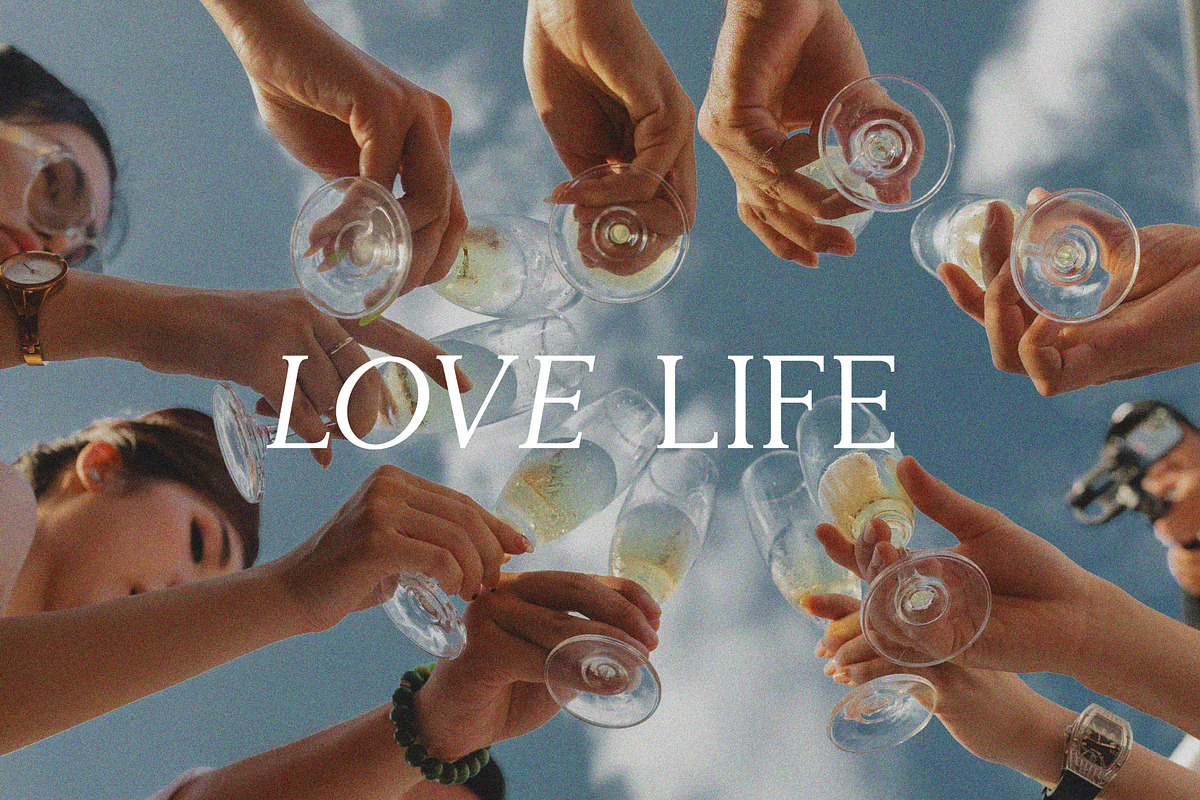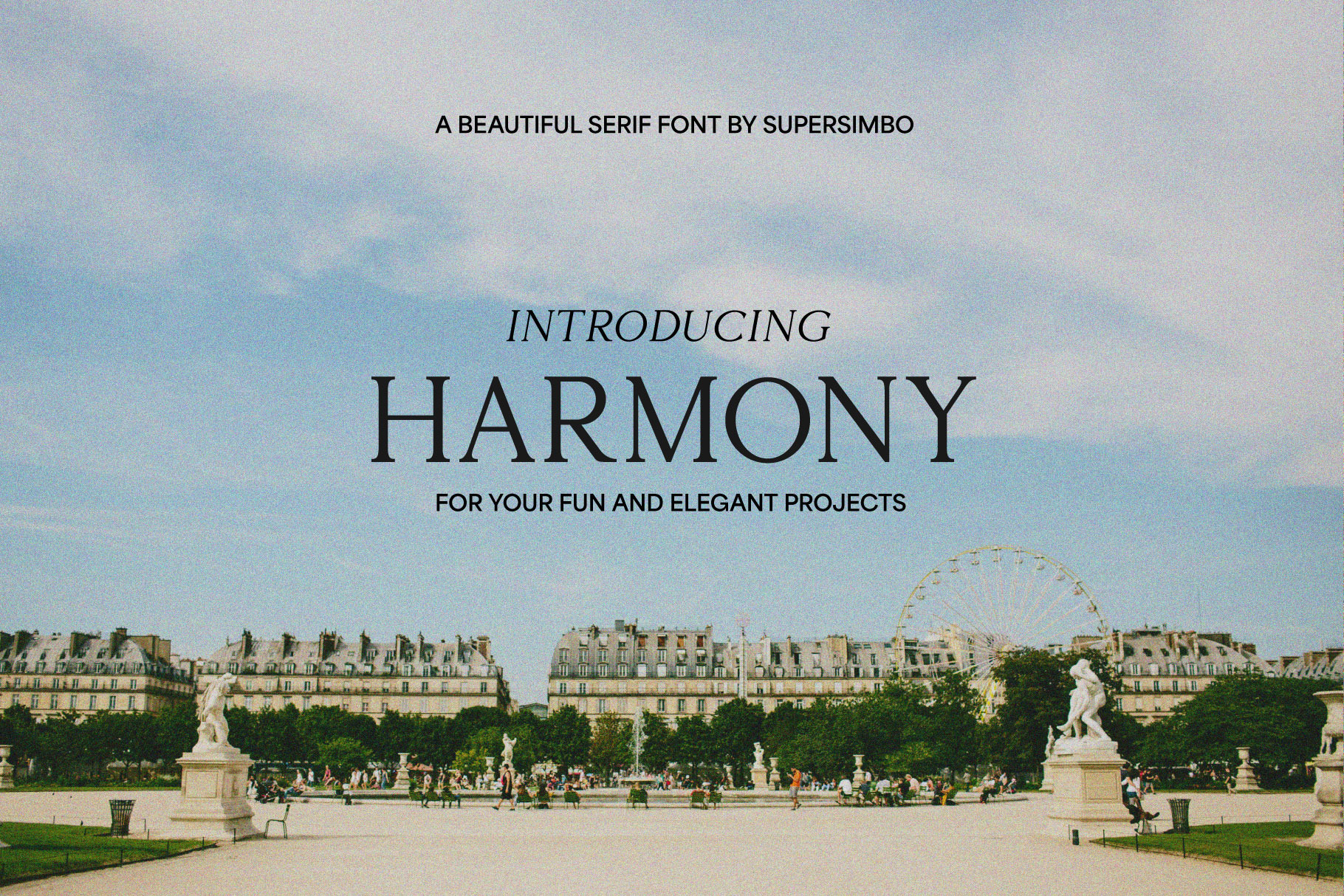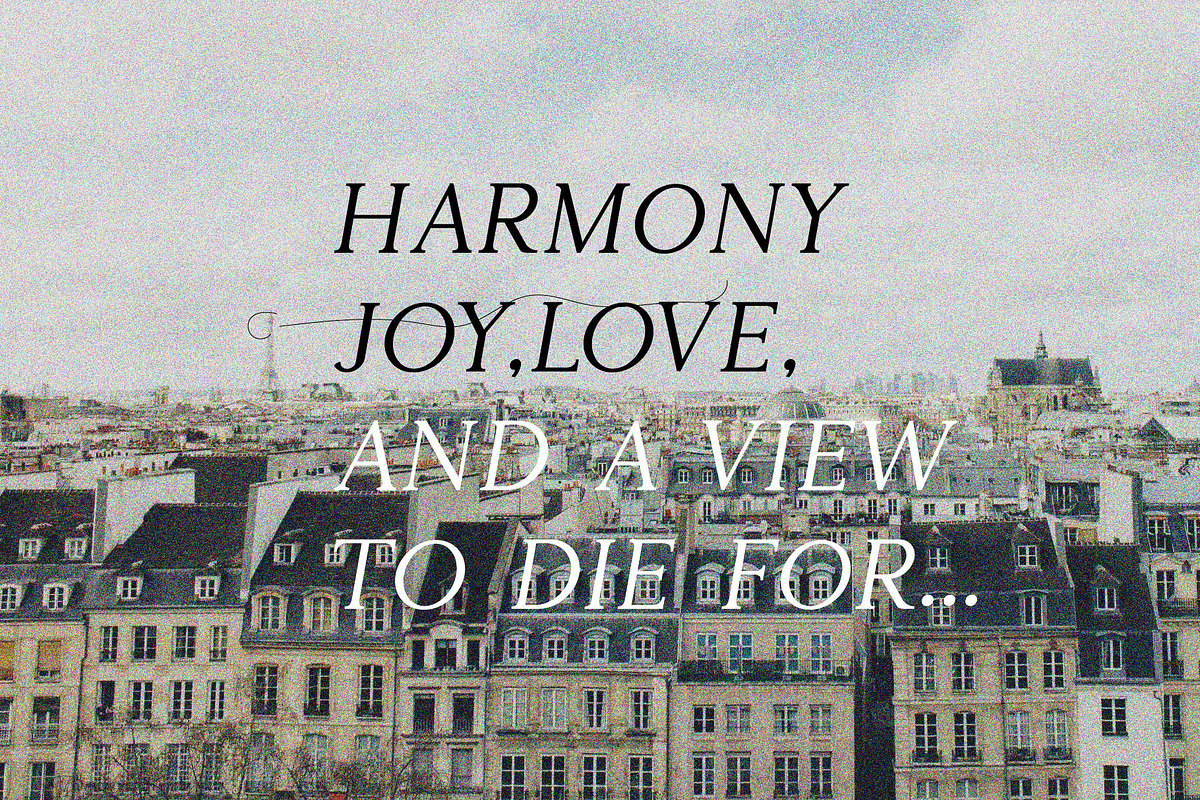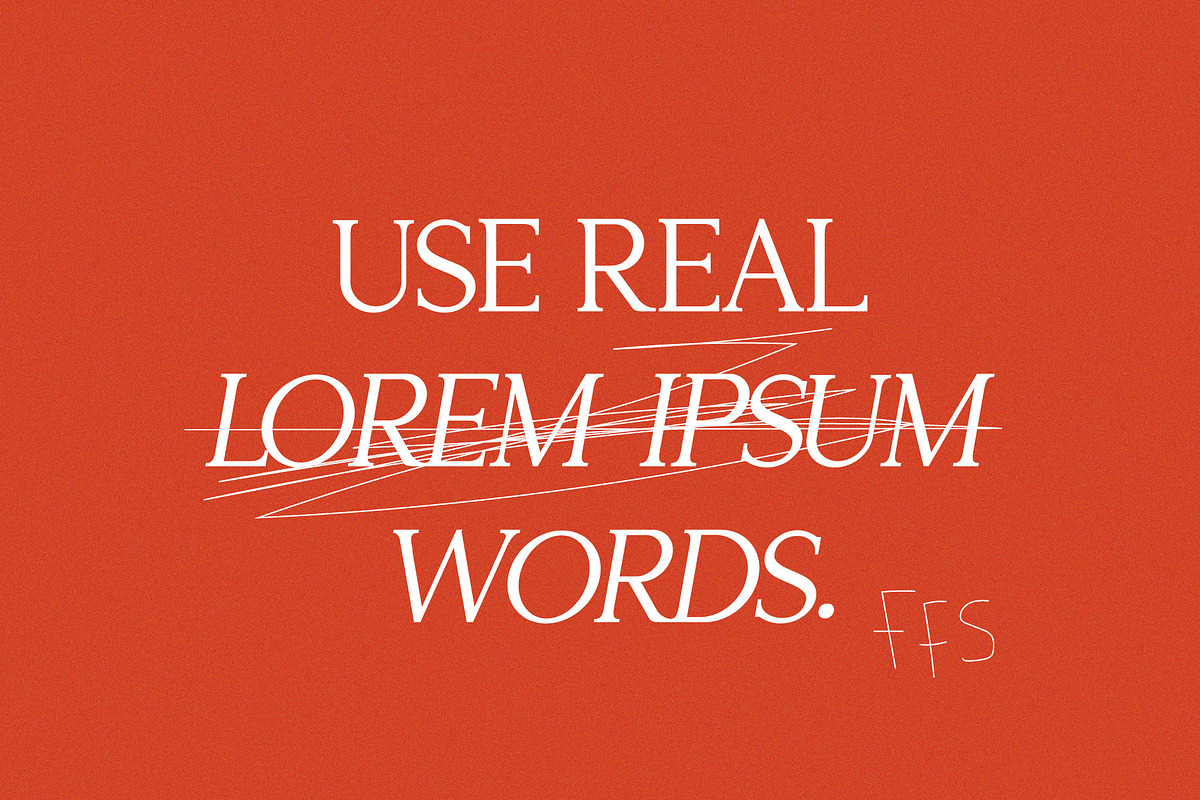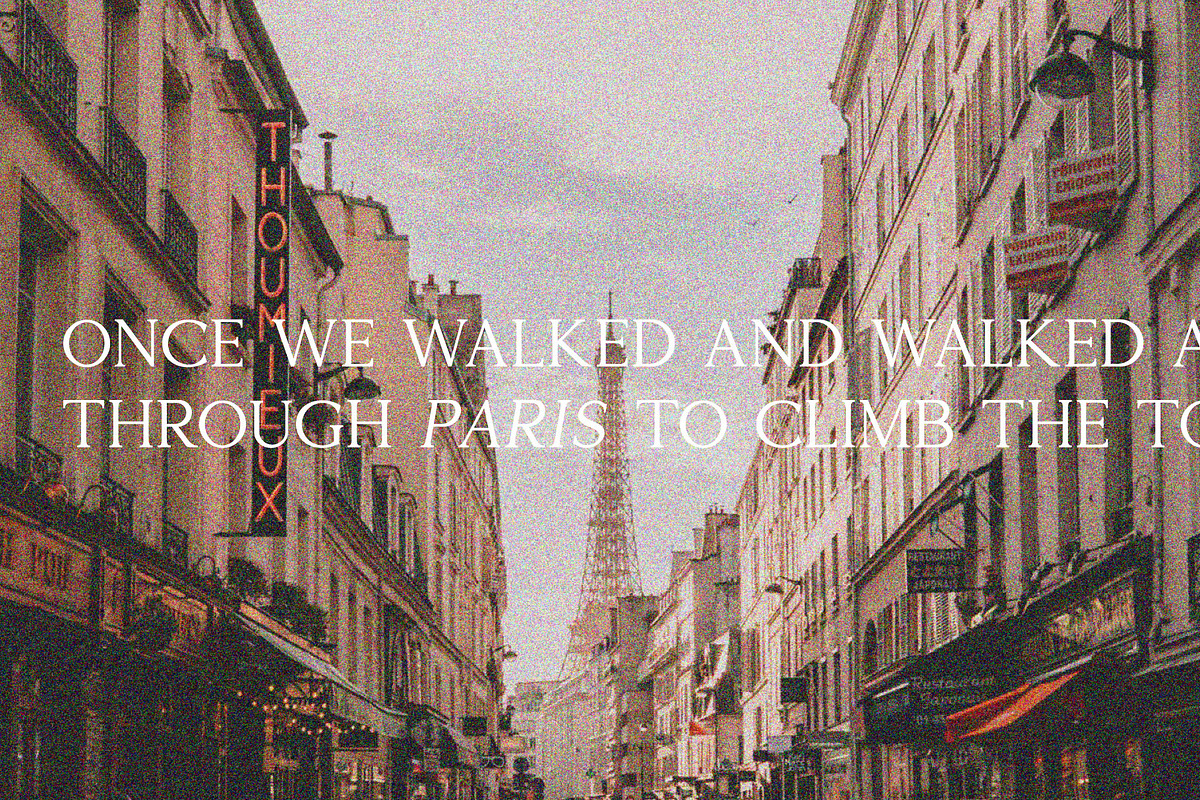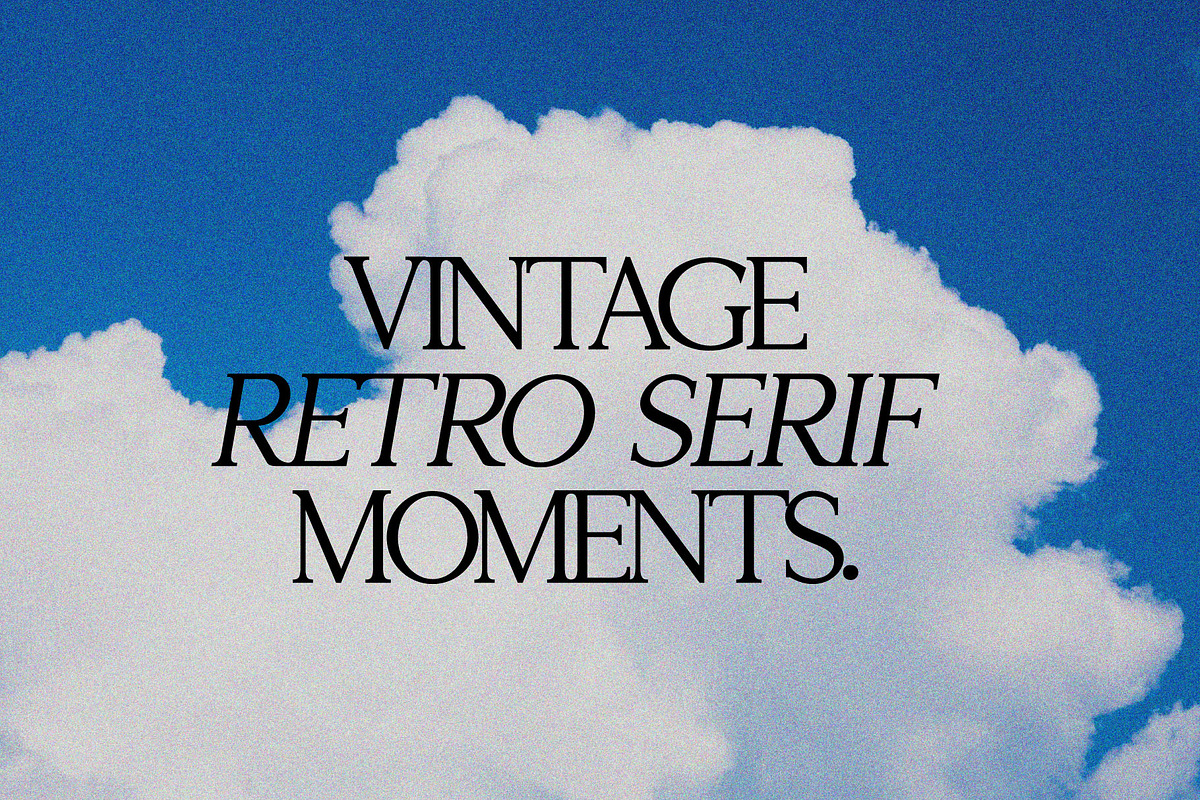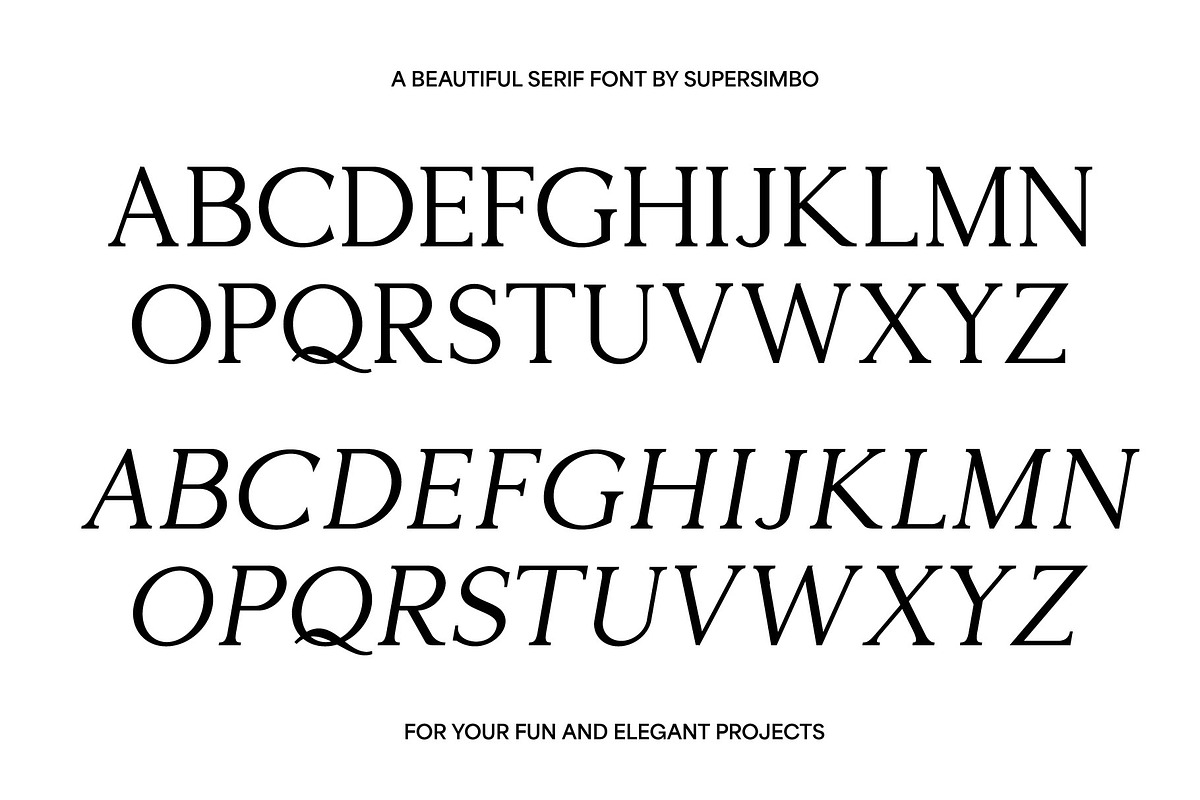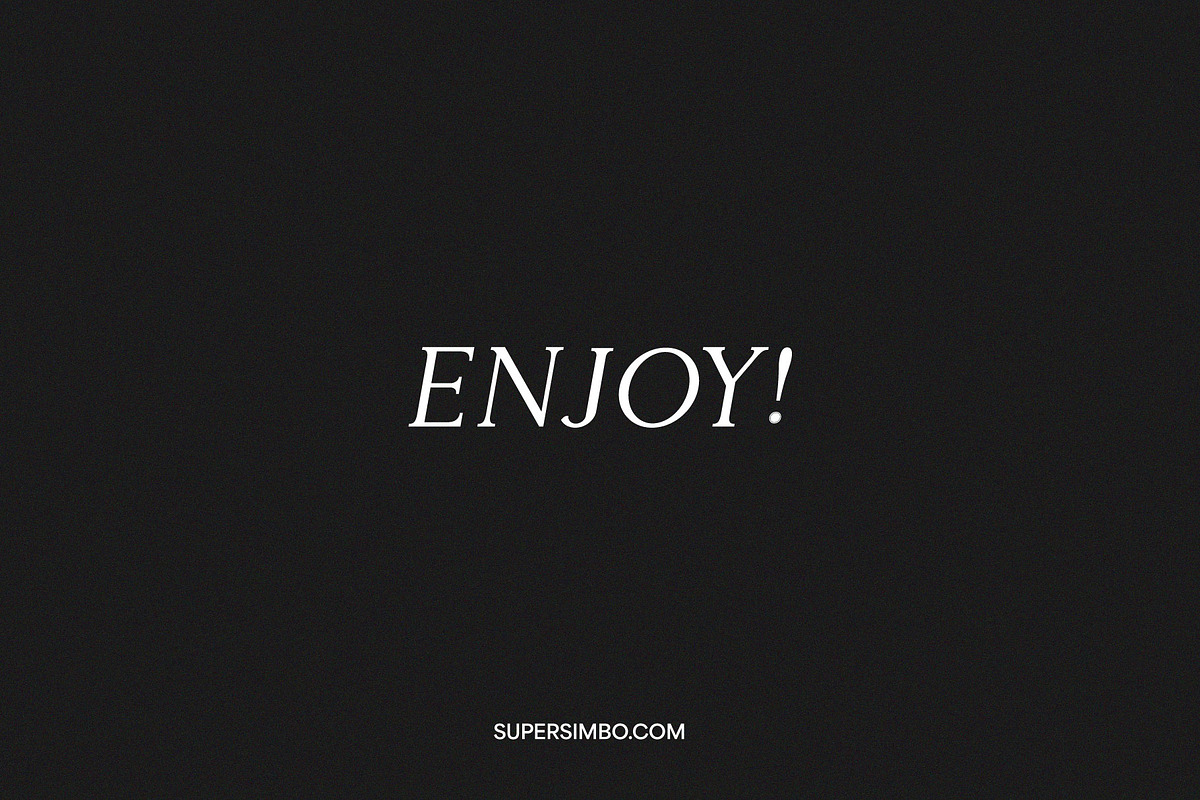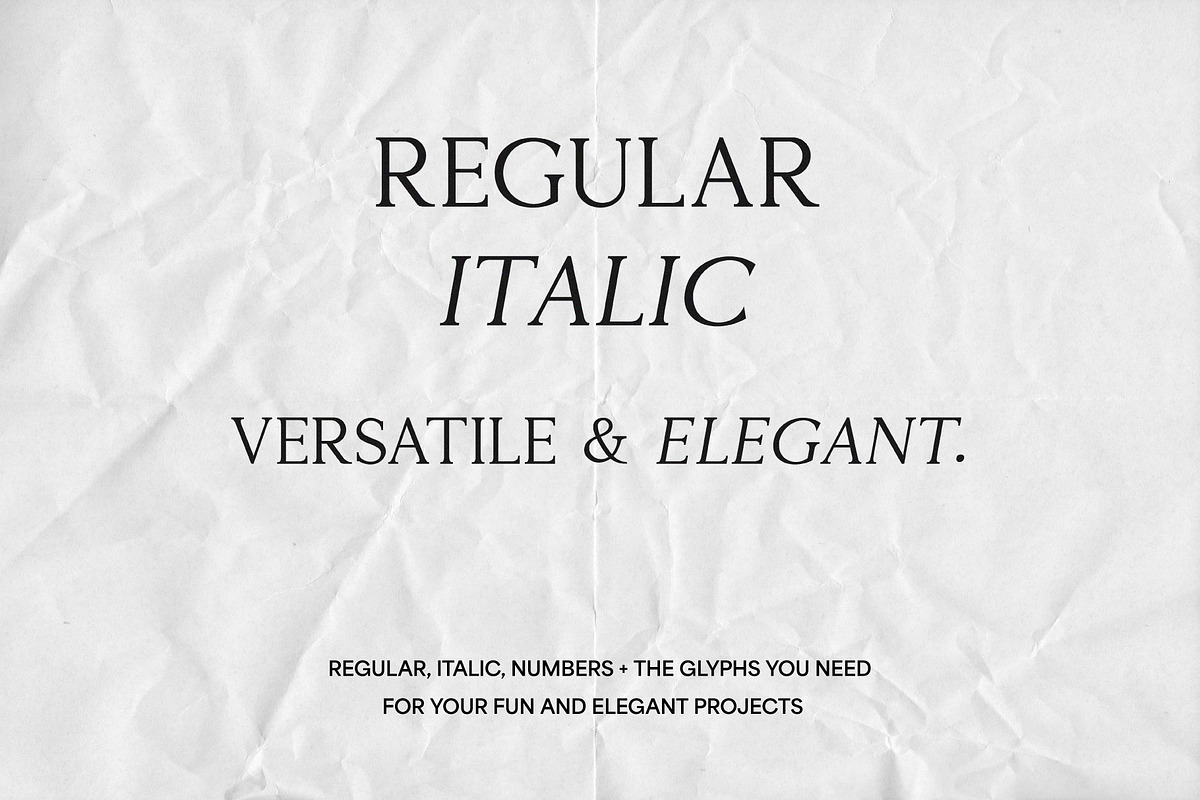
Harmony | Serif Font
Introducing Harmony – a refined serif font designed to elevate your creative projects with a touch of sophistication. Elegant yet playful, Harmony captures a blend of Parisian charm and vintage allure, making it as versatile as it is captivating. Choose from regular or italic to add a subtle sense of luxury and warmth to your work. Embrace the beauty and balance of Harmony – the perfect finishing touch to bring your vision to life. Enjoy the elegance.